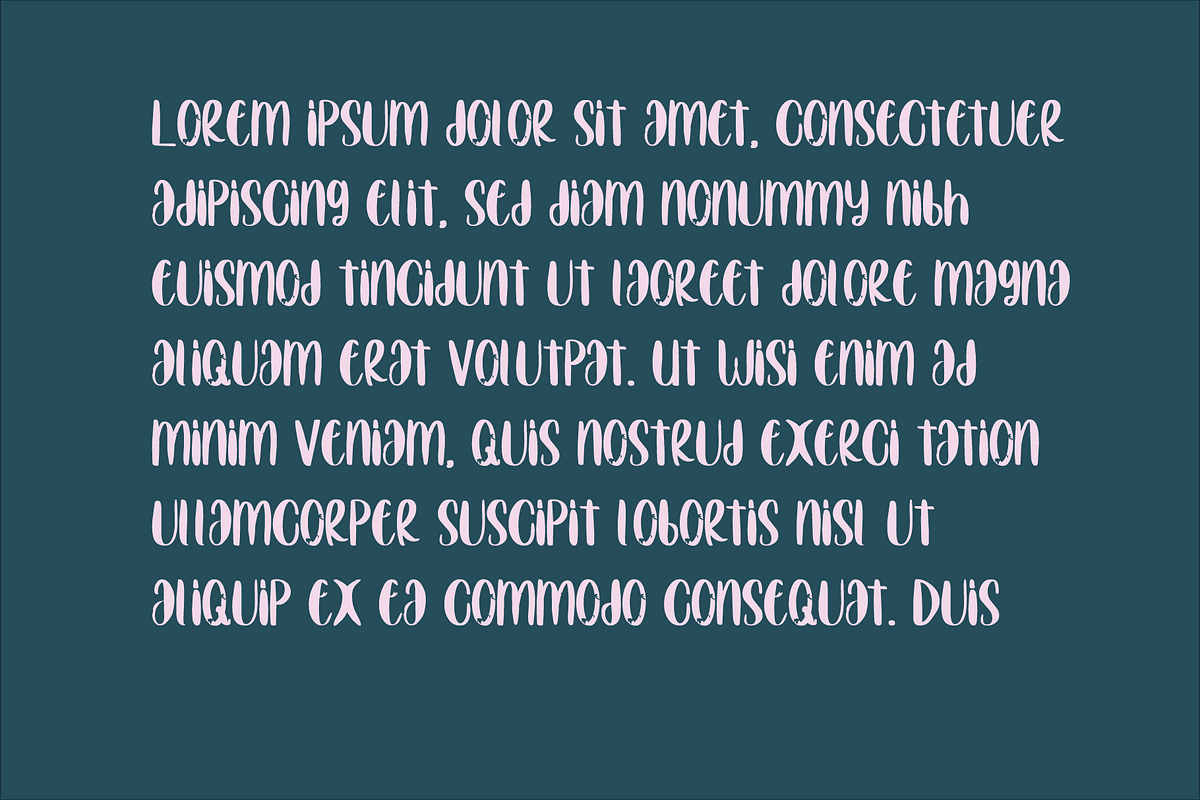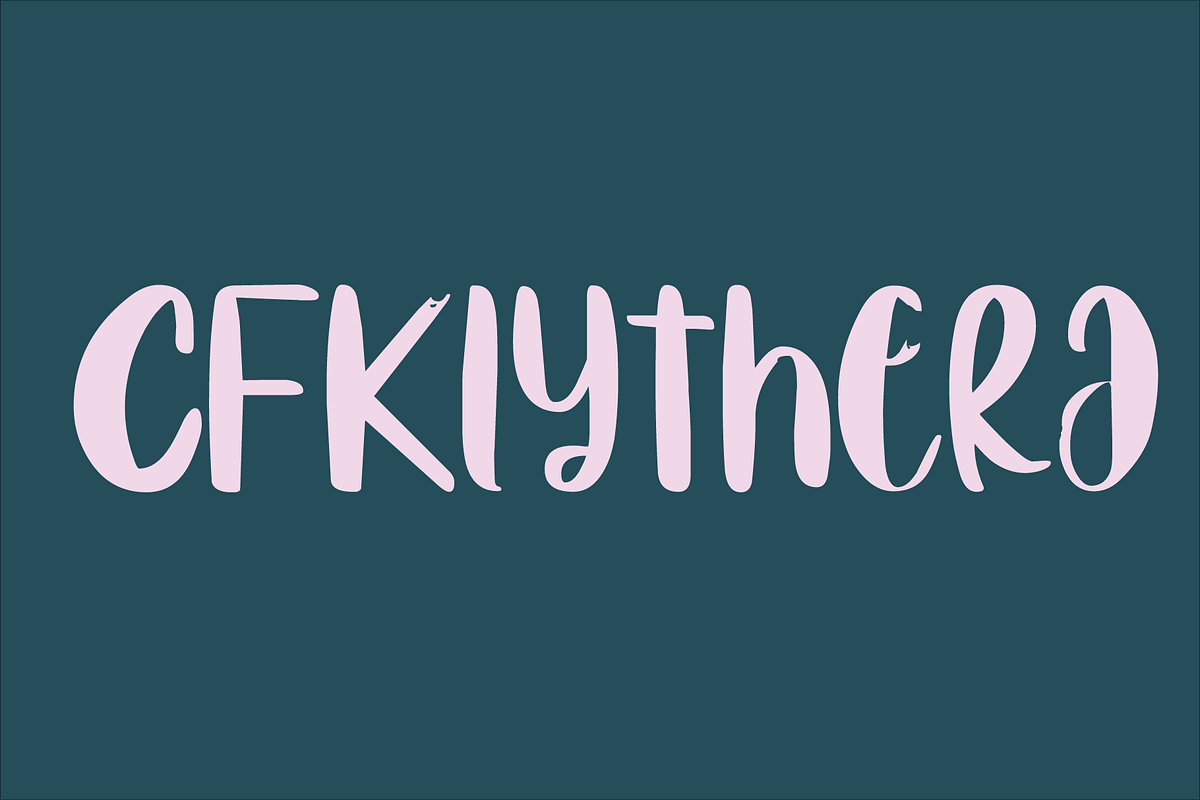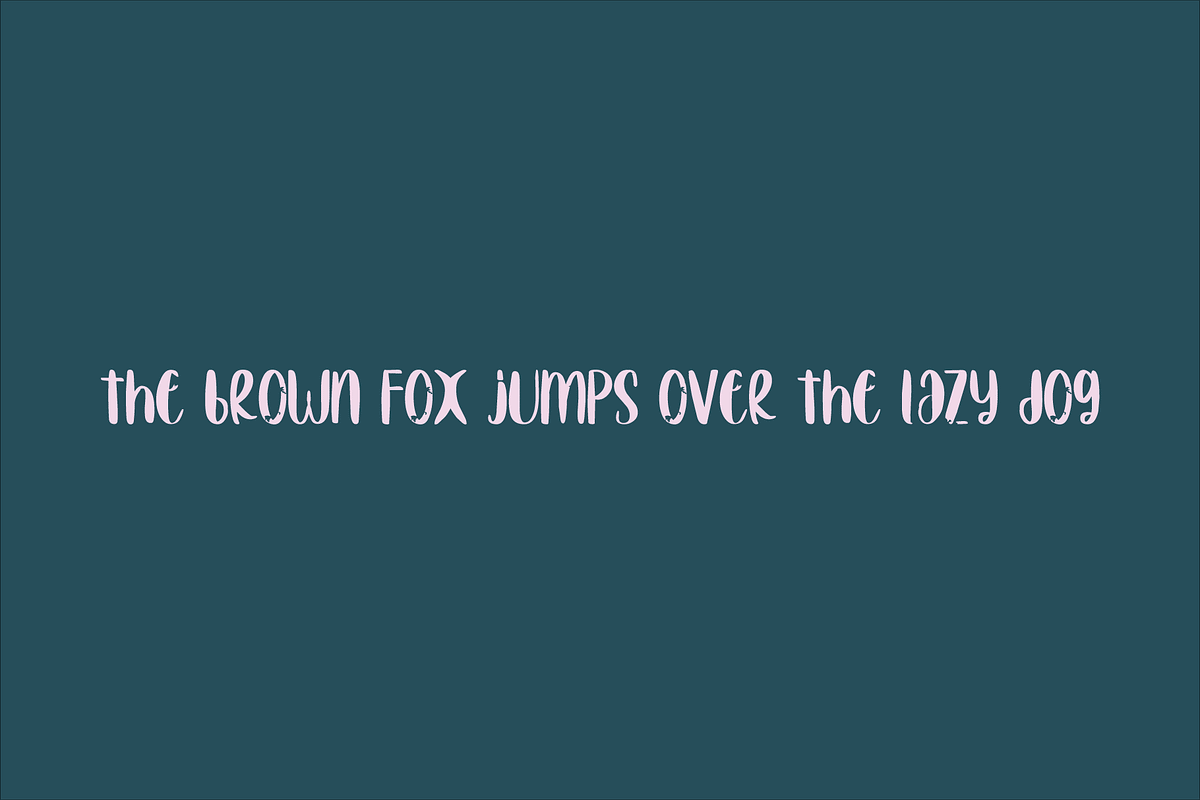
Klythera - Watercolor Inked Display
Klythera is a watercolor-inked display font that flows like brushstrokes on handmade paper. With its elegant curves and natural ink texture, each letter feels like a soft whisper of creativity—fluid, expressive, and full of artistic soul.
This font blends organic charm with display power, making it perfect for wedding invites, art prints, logos, quotes, packaging, and any design that needs a personal and graceful touch.
What Makes Klythera Stand Out: -🖌️ Watercolor Texture – Lush, inky detail gives every character a hand-painted feel. -🌫️ Soft & Romantic – Curves and transitions that evoke calm, beauty, and elegance. -🌍 Multilingual Ready – Full character set with extensive language support. -✨ Display-Ready Drama – Ideal for larger sizes where the ink texture can shine. Let your typography bloom with Klythera—a font that turns every word into a gentle piece of art.